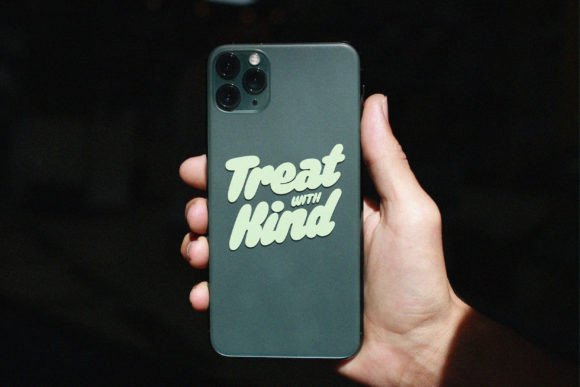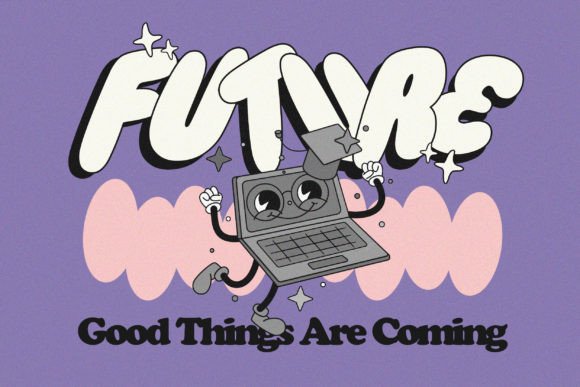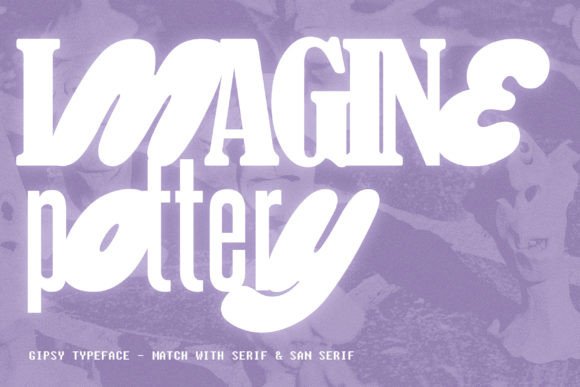
Introduction to Gipsy Font
Gipsy is a bold and retro display font.
It is perfect for your display or product design such as shirts, boho designs, stickers, logos, branding, greeting cards, circuit projects, posters, magazines, social media, planner prints and websites .
Why Choose Gipsy Font?
Gipsy Font offers exceptional quality and versatility, making it a valuable addition to your design toolkit. Whether you’re creating for personal projects or commercial use, Gipsy Font delivers professional results.